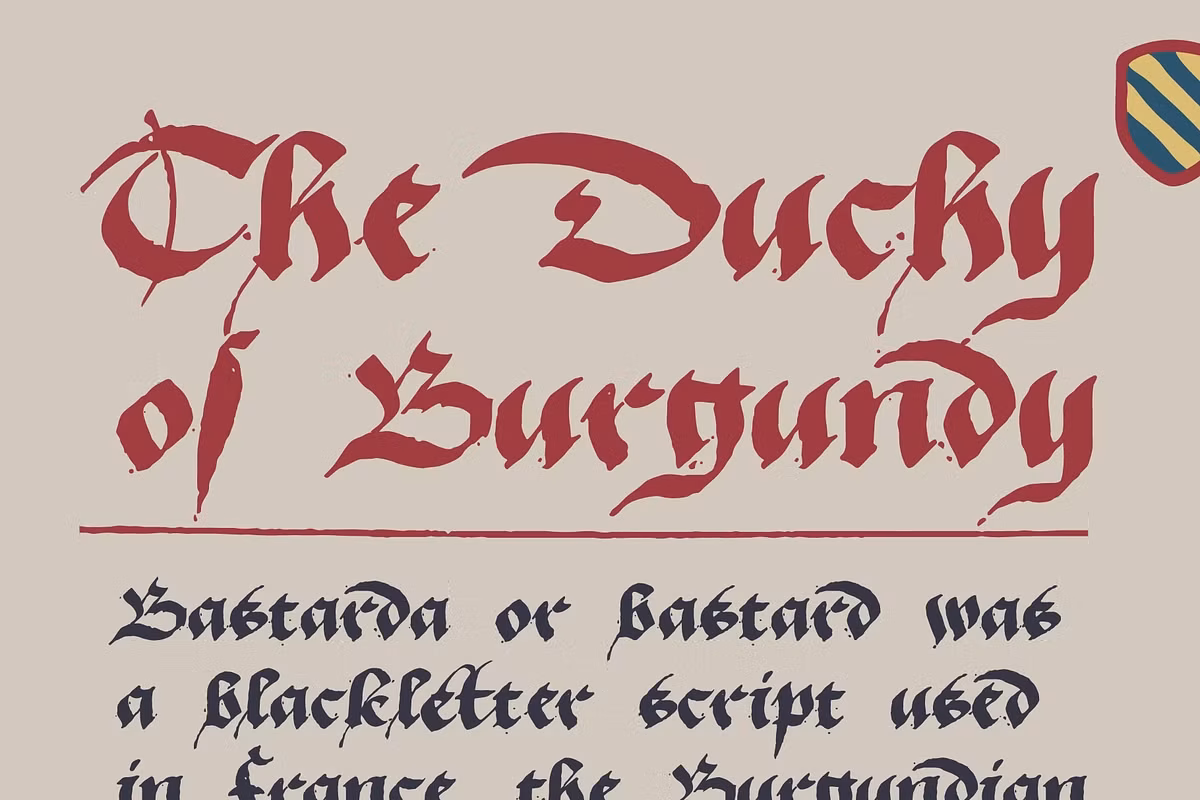
The Duchy Of Burgundy Bastarda Font Free Download is a historically inspired blackletter typeface that captures the ornate, gothic elegance of medieval manuscripts. Perfect for fantasy titles, historical projects, vintage branding, or dramatic editorial layouts, this font brings regal sophistication and old-world charm to your designs.
With its sharp angles, elaborate details, and authentic Bastarda script style, this typeface is ideal for anyone seeking to evoke the atmosphere of the Middle Ages or Renaissance. It’s especially well-suited for book covers, game titles, and period-themed events.